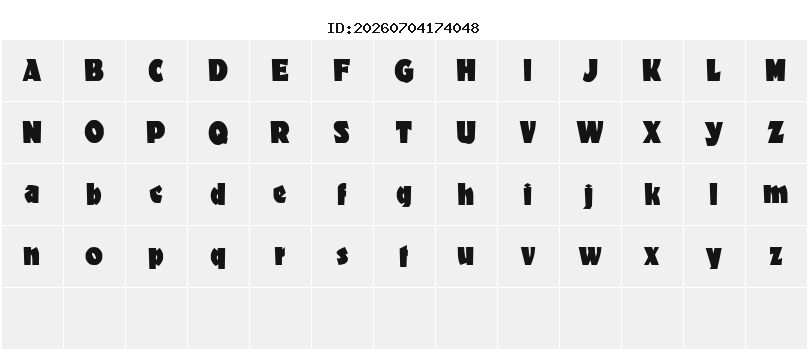
Dromon Preview
• Font Name: Dromon
• Full Font Name: Dromon
About Dromon.ttf
Dromon.ttf is a modern, elegant sans-serif font designed for ultimate readability and visual harmony. Perfect for branding, headlines, web design, and print materials.